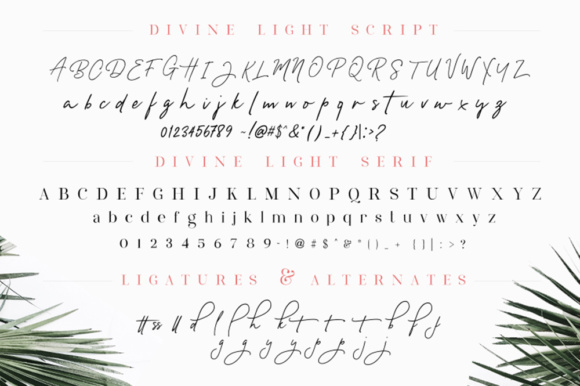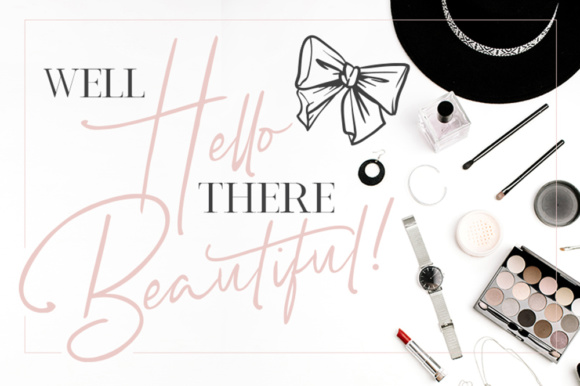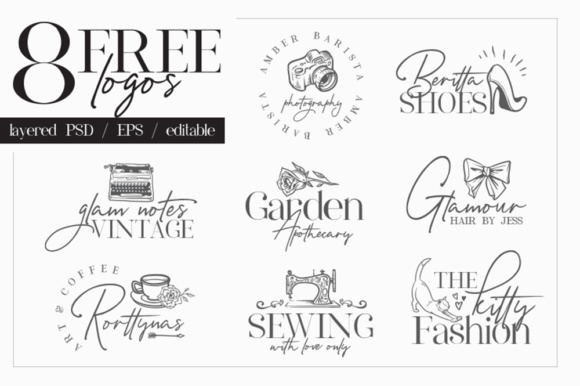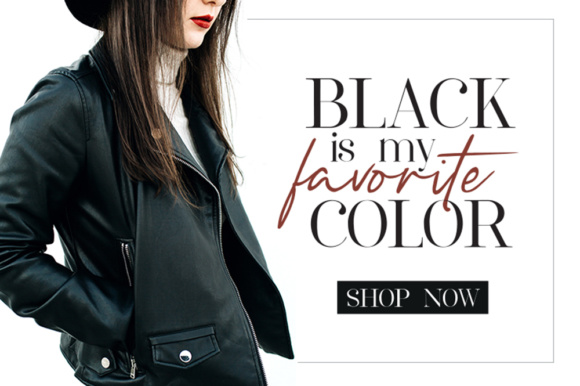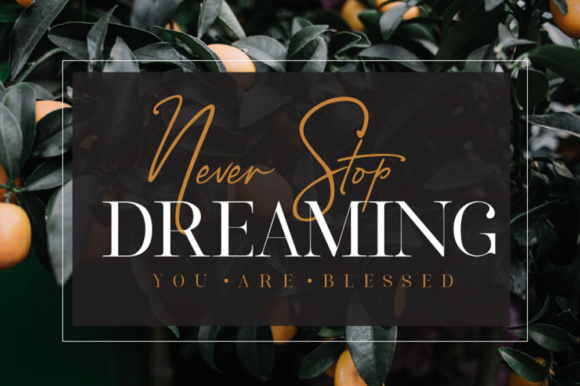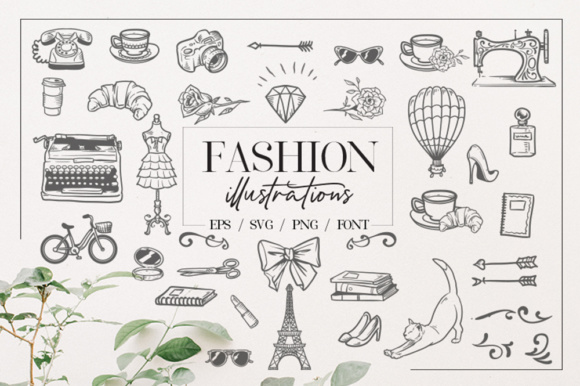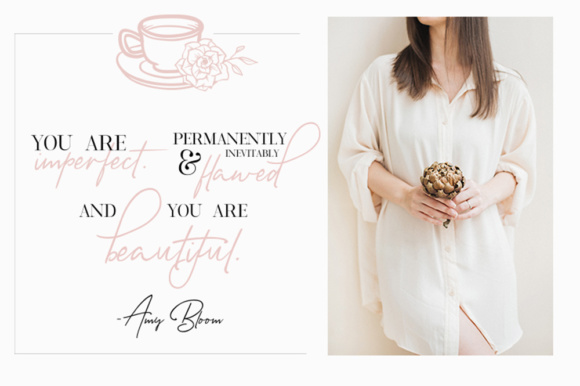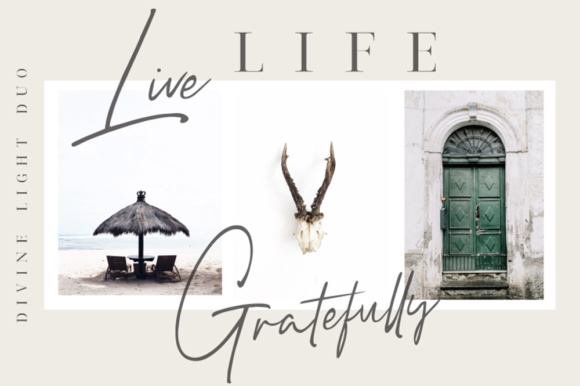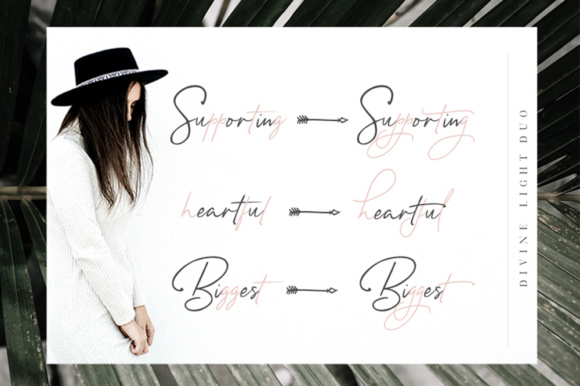
Divine Light Duo Font
About Divine Light Duo Font
Divine Light Duo is a font family containing 2 complementary fonts (sans and script / signature) and an extra font containing fashion illustrations.
It includes lots of cliparts in font format as well as EPS, PNG and SVG. Please check all lowercase, uppercase and numerals to access all cliparts in font format.